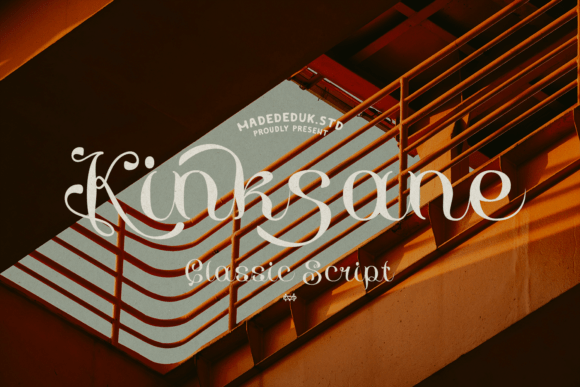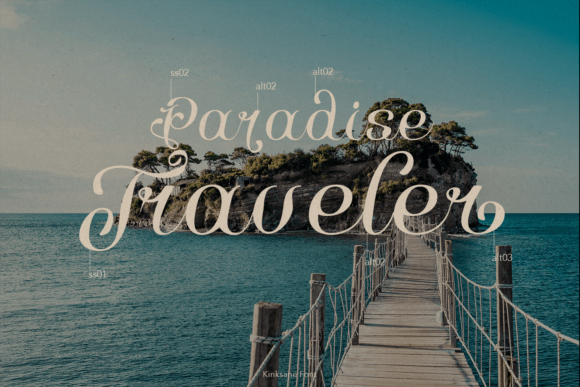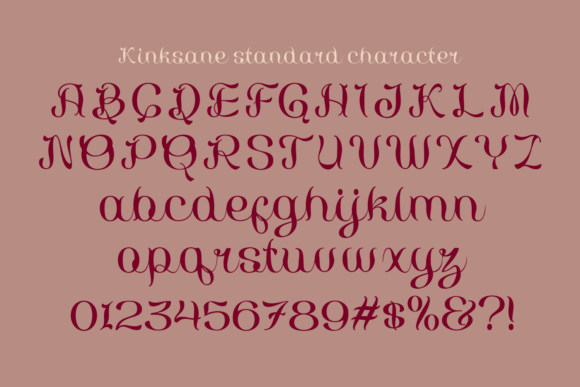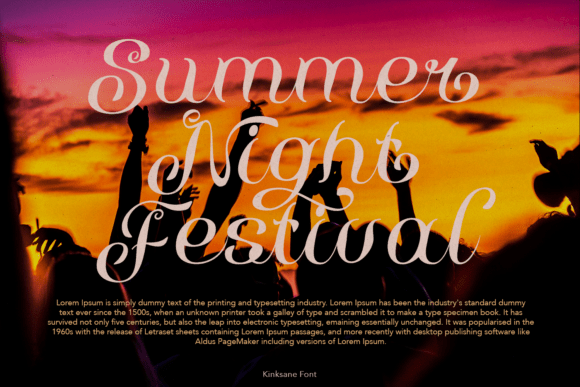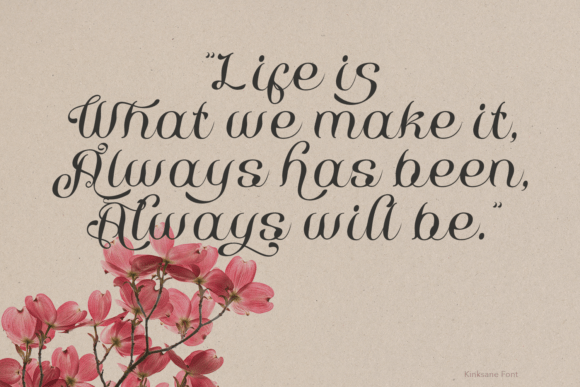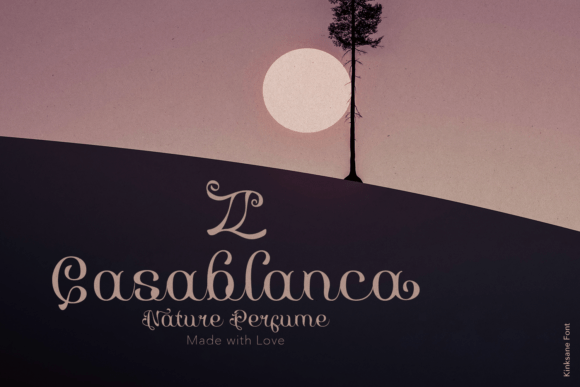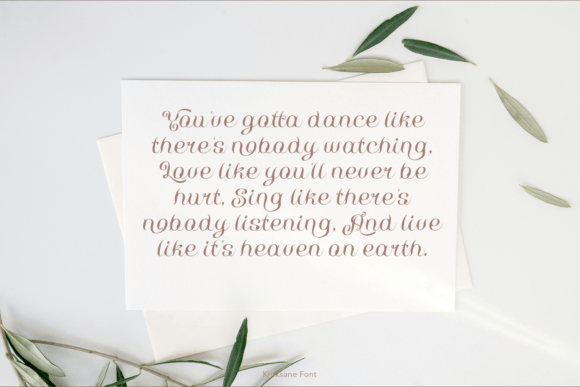
Discover the Timeless Charm of Kinksane Font
Have you ever been browsing through a vintage bookstore and stumbled upon a worn-out novel with a font so beautiful, it stops you in your tracks? That’s exactly the kind of creative moment that sparked the creation of Kinksane Font. This classic script font is a masterful blend of curly styles and alternative ligatures that evoke the nostalgia of a bygone era.
Perfect for designers looking to add a modern vintage touch to their work, Kinksane Font is a versatile tool that can be used for a wide range of display purposes. From book covers to product labels, logo badges to drink bottles, this font is sure to make your designs stand out.
As a designer, you know how valuable it is to have a font that can transport your audience to another time and place. Kinksane Font is that font – a timeless classic that will add a touch of elegance and sophistication to any design project.
Kinksane Font Key Features
- Font Family: Kinksane
- Font Styles: Regular, Italic, Bold, Bold Italic
- Unique Characteristics: Distinctive, handwritten style with a mix of cursive and print elements, perfect for creative and artistic designs
Kinksane Font Review
At first glance, Kinksane font has some interesting aspects that caught my attention. ✨ The font’s unique combination of curves and lines gives it a dynamic feel, making it perfect for headings and titles. It’s bold, yet elegant, which makes it suitable for a wide range of design projects.
One of the things I appreciate about Kinksane is its versatility. ✨ It comes in multiple weights, from light to bold, which allows designers to experiment with different styles and moods. Additionally, the font is highly legible, even at smaller sizes, making it a great choice for body text.
- ⚠️ Limited language support: Kinksane font only supports a limited set of languages, which might be a concern for designers working on projects that require multilingual support.
- ⚠️ Not suitable for body text at small sizes: While Kinksane is highly legible at larger sizes, it can become difficult to read at smaller sizes, which might limit its use in certain design contexts.
Overall, Kinksane font is a solid choice for designers looking for a bold and elegant font. While it has some limitations, its unique style and versatility make it a great addition to any design project. With some careful consideration of its limitations, Kinksane font can be a valuable tool in a designer’s toolkit.
Tips for Getting the Most Out of Kinksane
Use the Kinksane font to add a touch of modernity and edginess to your designs.
Pair it with bold colors and geometric shapes for a striking effect.
The Kinksane font is perfect for:
Music-related designs, such as album covers and concert posters.
Streetwear and fashion branding.
Edgy marketing campaigns and advertisements.
Alternatives to Kinksane Font for Designers
Great Vibes is a beautiful, elegant script font that works well for headings, titles, and quotes. It’s ideal for designs that require a touch of sophistication and playfulness. Great Vibes is more cursive and less geometric compared to Kinksane, making it suitable for a wider range of designs, from fashion to wedding invitations.
Carolyna Pro is a modern script font that’s perfect for luxury brands, fashion, and high-end designs. It features a unique, handwritten feel that’s both elegant and sophisticated. Compared to Kinksane, Carolyna Pro has a more refined and polished look, making it suitable for designs that require a high level of sophistication.
Alex Brush is a beautiful, handwritten font that’s perfect for designs that require a personal touch. It’s ideal for wedding invitations, quotes, and titles. Compared to Kinksane, Alex Brush has a more organic and natural feel, making it suitable for designs that require a sense of warmth and personality.